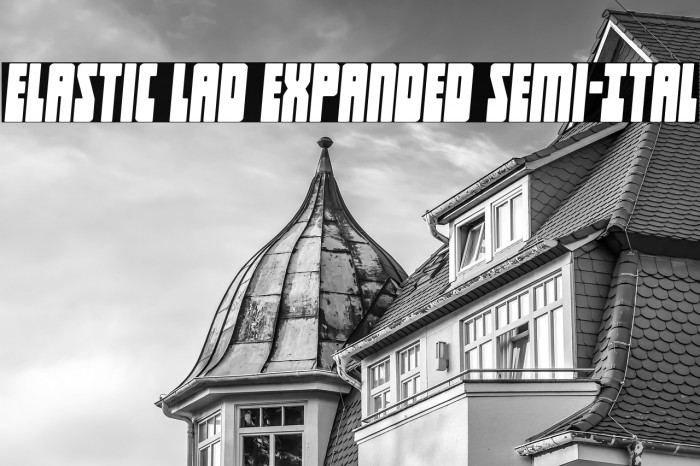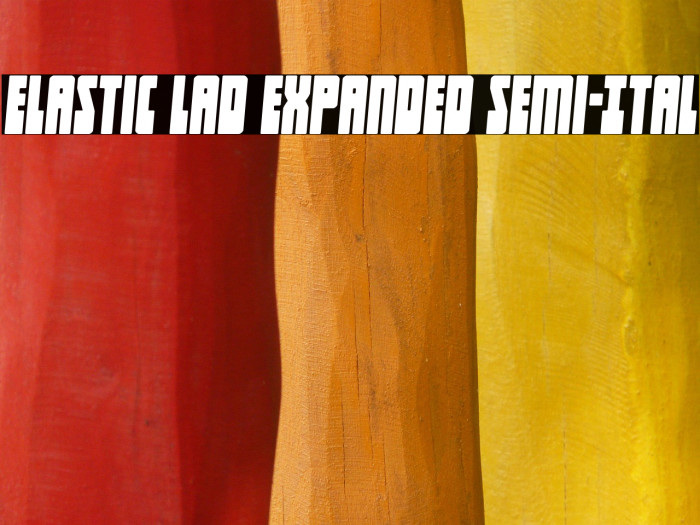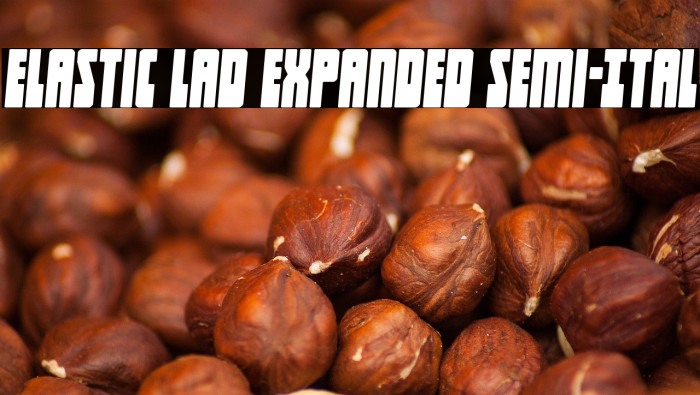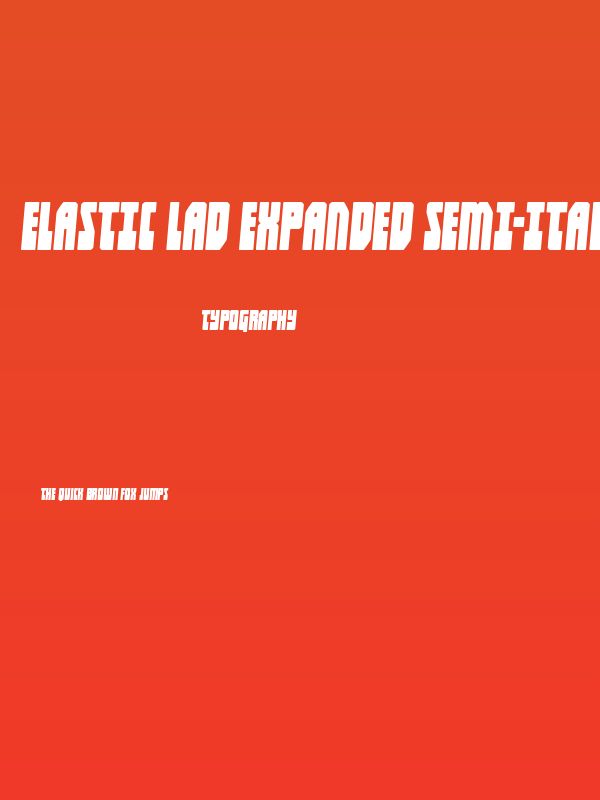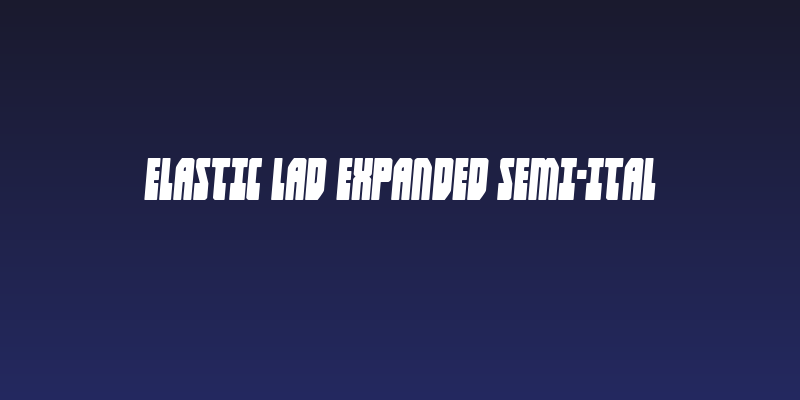
Elastic Lad Expanded Semi-Ital Font
Elastic Lad Expanded Semi-Ital Description
This font features a bold and dynamic style with a distinctly modern flair. The characters are wide and expanded, giving a sense of strength and impact. The semi-italic slant adds a touch of movement and energy, making it suitable for attention-grabbing designs. The uppercase letters are particularly striking, with sharp angles and a blocky appearance that conveys a sense of power. The numbers and special characters maintain this bold aesthetic, ensuring consistency across all elements. This font is ideal for projects that require a strong visual presence.
| Proposed Projects | Ideal for posters, headlines, branding, and any project needing a strong visual impact. |